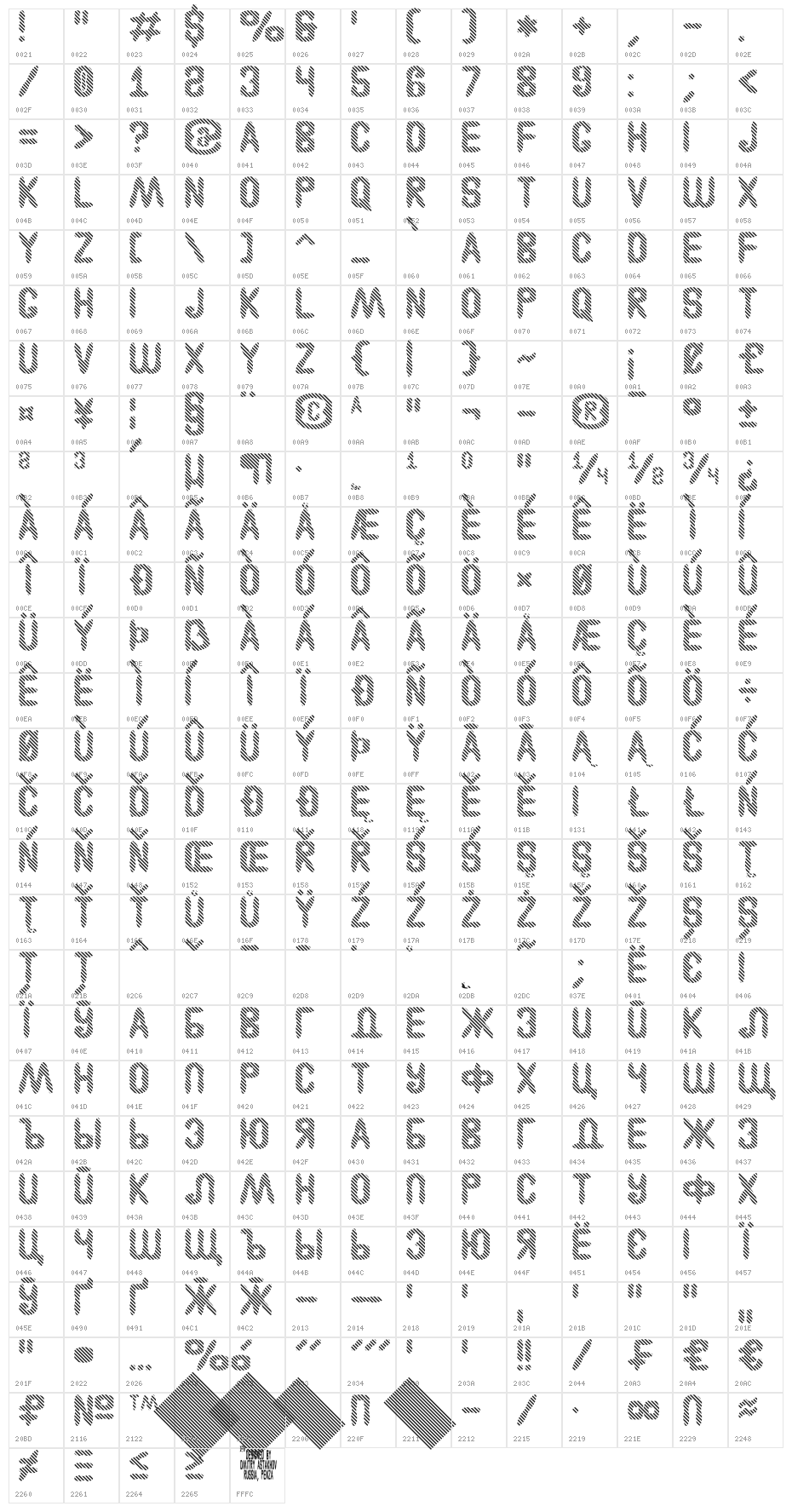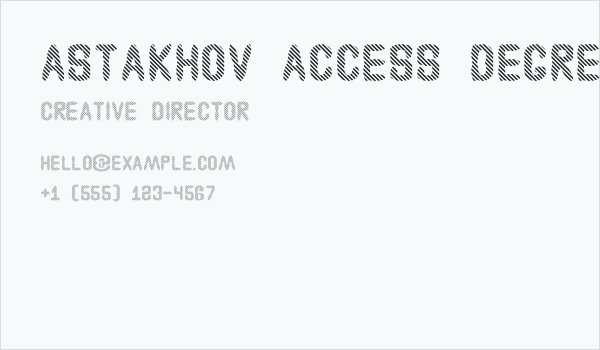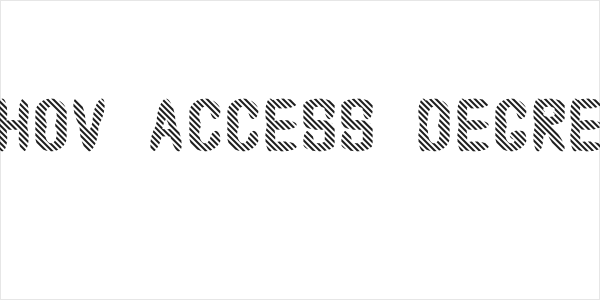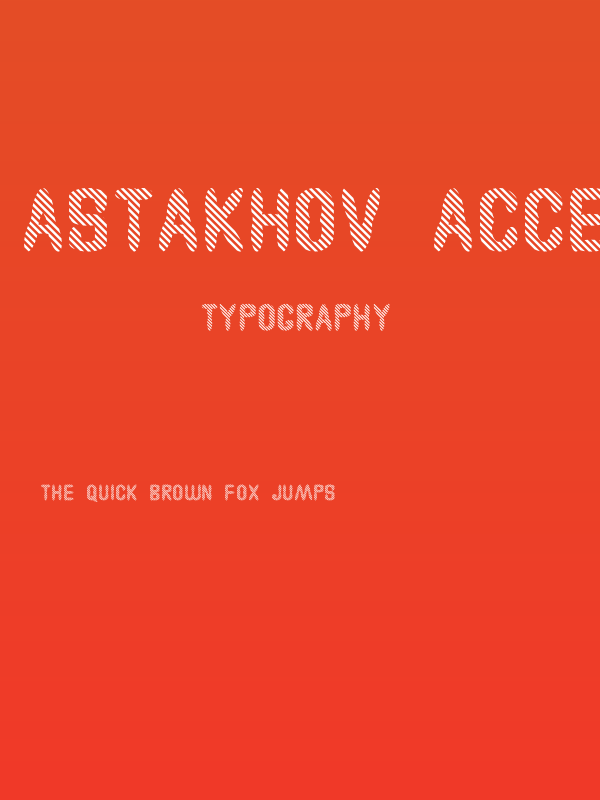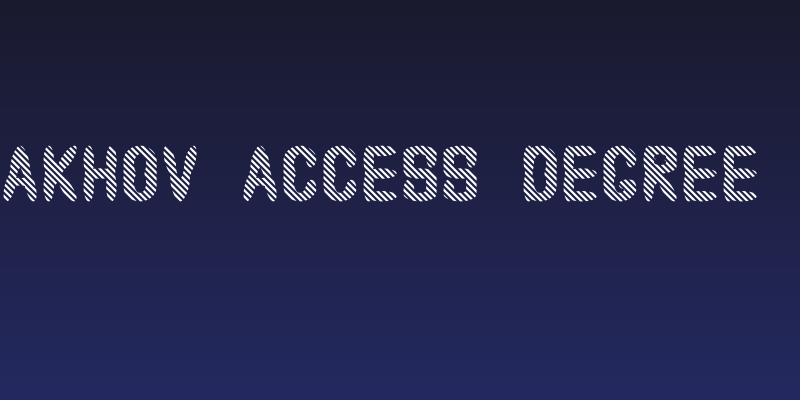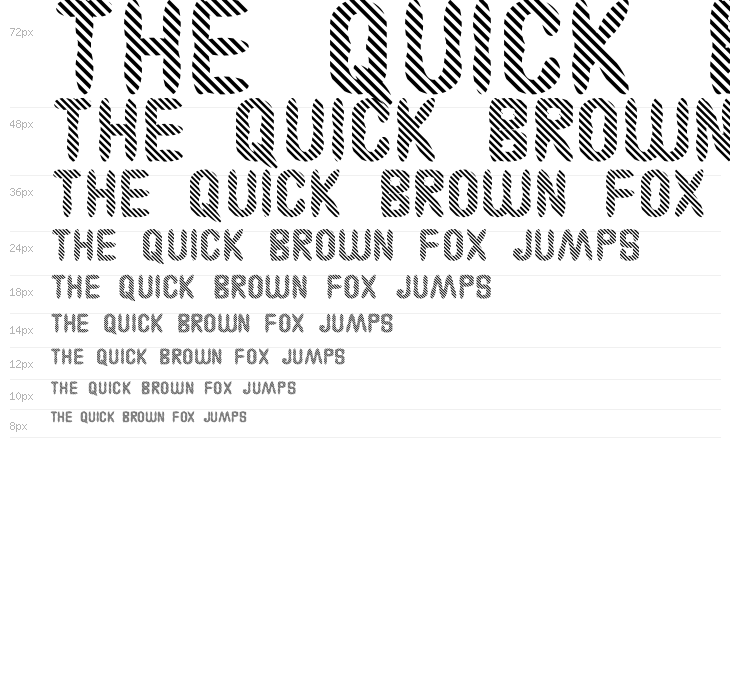
Astakhov Access Degree ADL Font
Astakhov Access Degree ADL Description
This font features a unique striped pattern across each character, creating a dynamic and visually engaging effect. The letters are bold and geometric, with a modern and industrial feel. The uppercase and lowercase letters maintain a consistent style, with clean lines and a uniform width. Numbers and special characters are designed to match the overall aesthetic, ensuring a cohesive look across all text. The diagonal stripes add a sense of movement and energy, making this font ideal for projects that require a strong visual impact.
Proposed ProjectsIdeal for branding, posters, and headlines that require a strong visual impact.